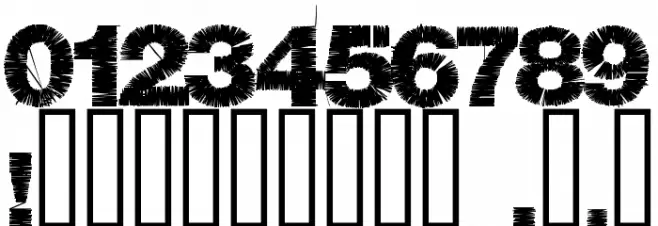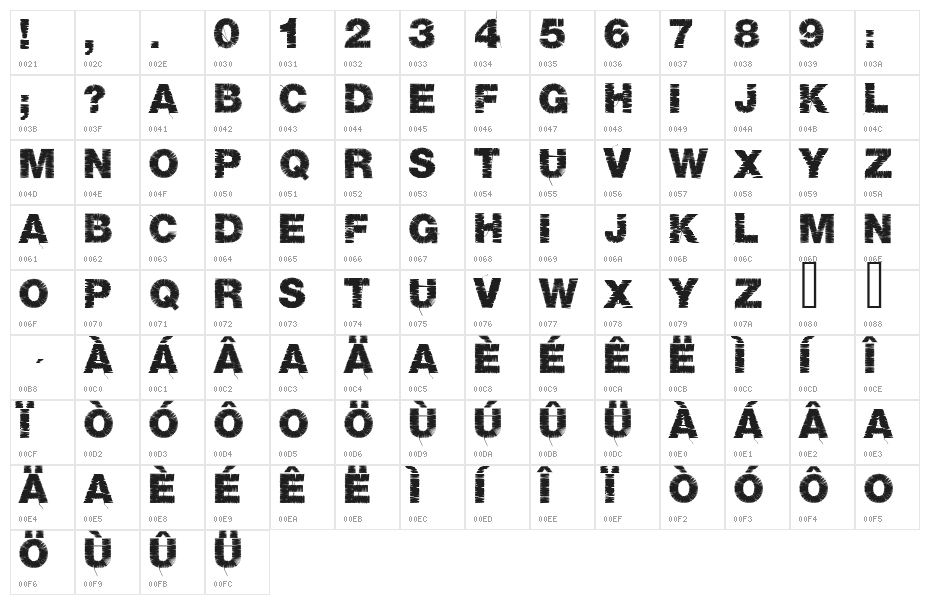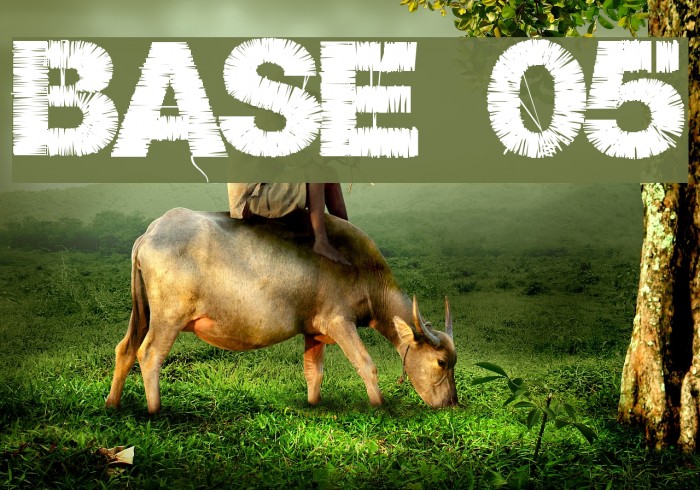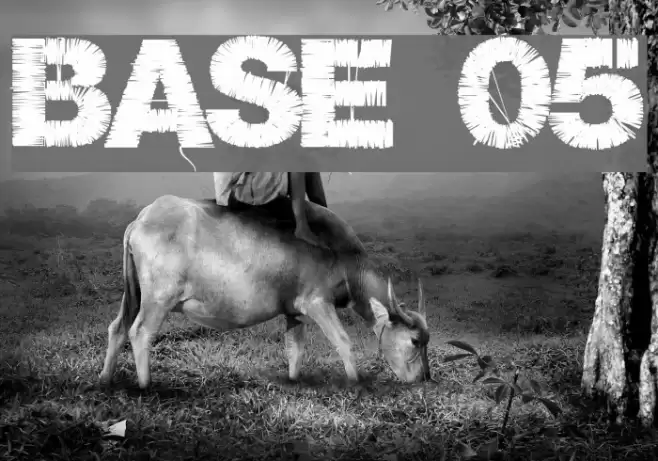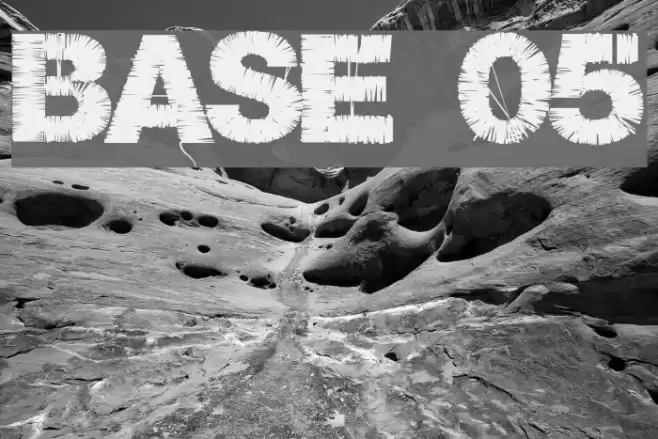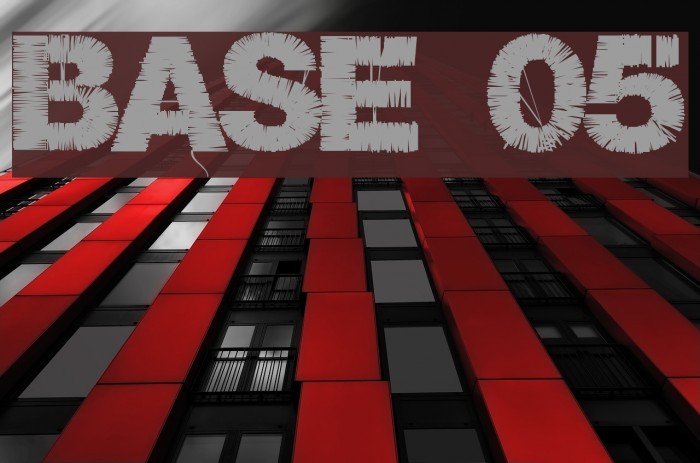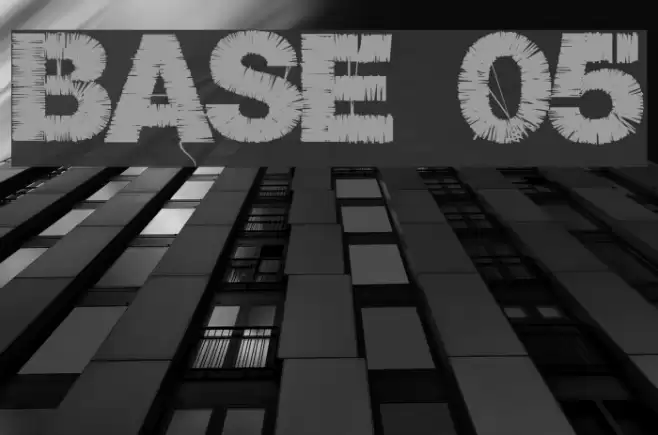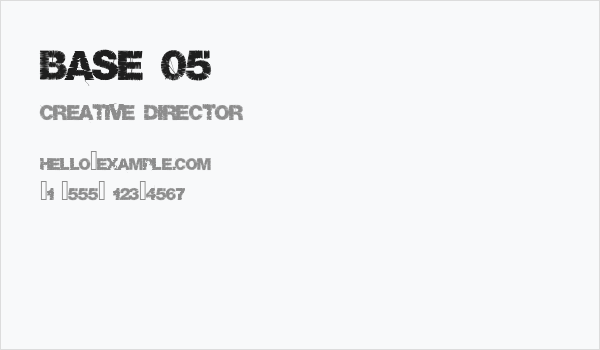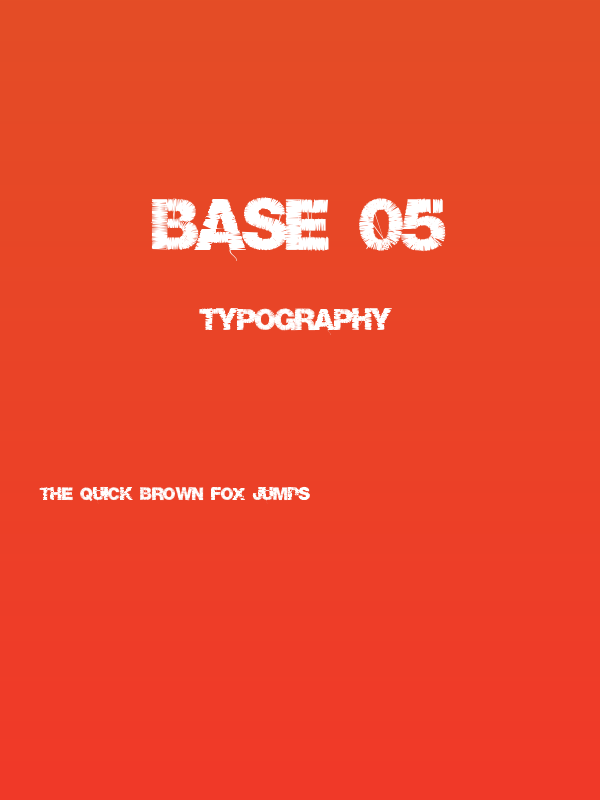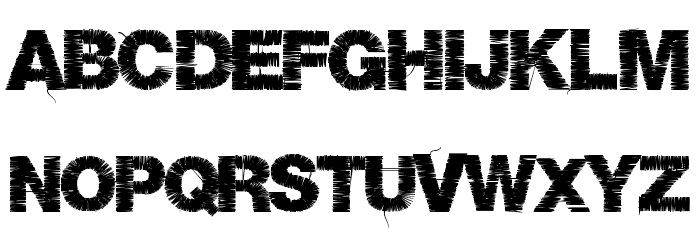
Base 05 Font
Base 05 Description
This font features a bold and dynamic design with a unique texture that resembles brush strokes or scratches across each character. The uppercase and lowercase letters maintain a consistent width and height, creating a uniform appearance. The numbers and special characters follow the same stylistic approach, ensuring cohesion throughout. The font's distinct style makes it stand out, perfect for projects that require a strong visual impact. Its decorative nature suggests a modern and edgy aesthetic, suitable for creative and artistic applications.
| Proposed Projects | This font is perfect for poster designs, album covers, branding projects, and any creative work that requires a bold statement. |